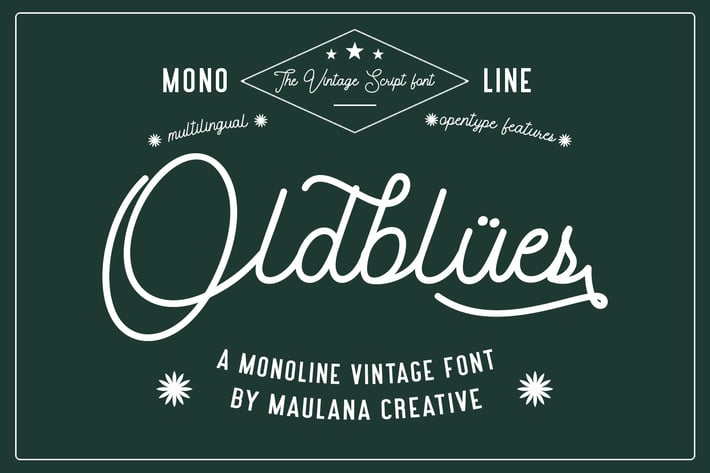
Oldblues Monoline Script Vintage Font
Give your designs an authentic handcrafted feel. Oldblues Monoline Script Vintage Font is perfectly suited to stationery, logos and much more.